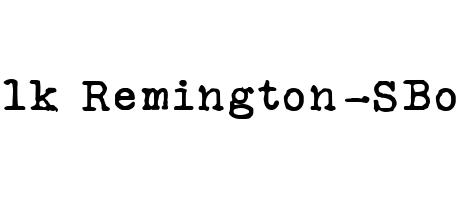
Silk Remington
By Jaduger Design Studio
Silk Remington-SBold, a name hinting at both elegance and strength, embodies a classic typewriter aesthetic. Its sturdy serifs and consistent stroke width convey a sense of timeless reliability. The characters sit comfortably together, suggesting a balanced and readable typeface perfect for vintage-inspired designs or formal documents. It projects a clean, no-nonsense feel.